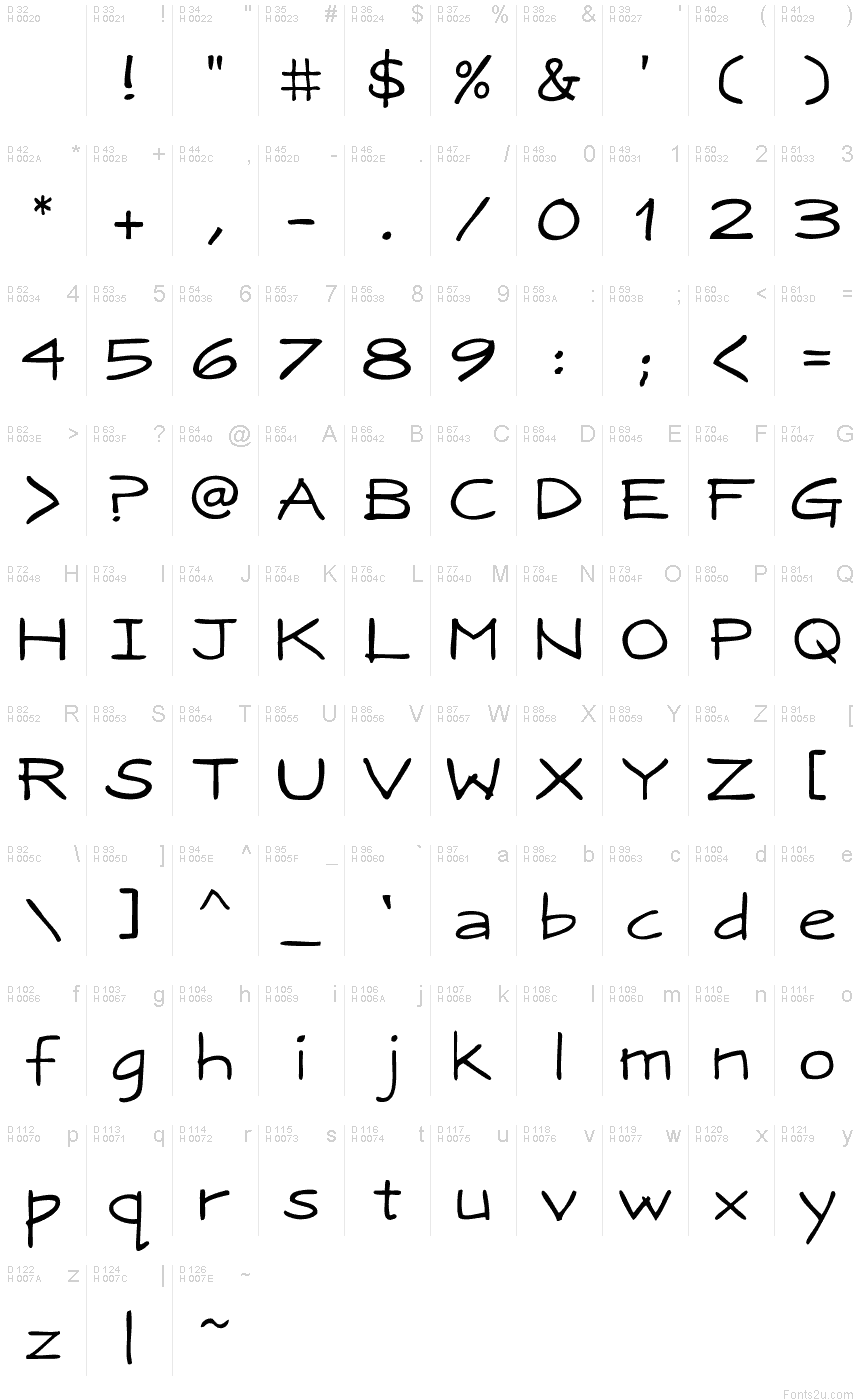
DraftPunk LTD by Adriana E. Hernandez is a free handwritten display font with the quick, unpolished line of marker lettering. Its strokes change gently in width, and the rounded curves retain small wobbles that make the forms feel written rather than typeset. The finish is casual and direct.
It can create a handmade label for food packaging, music merchandise, or event posters, where its loose construction suits an informal voice. Beside doodles and simple character art, the lettering can become part of the illustration, echoing the pen-drawn marks.